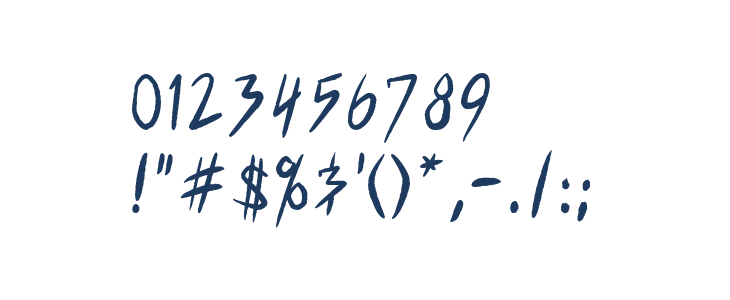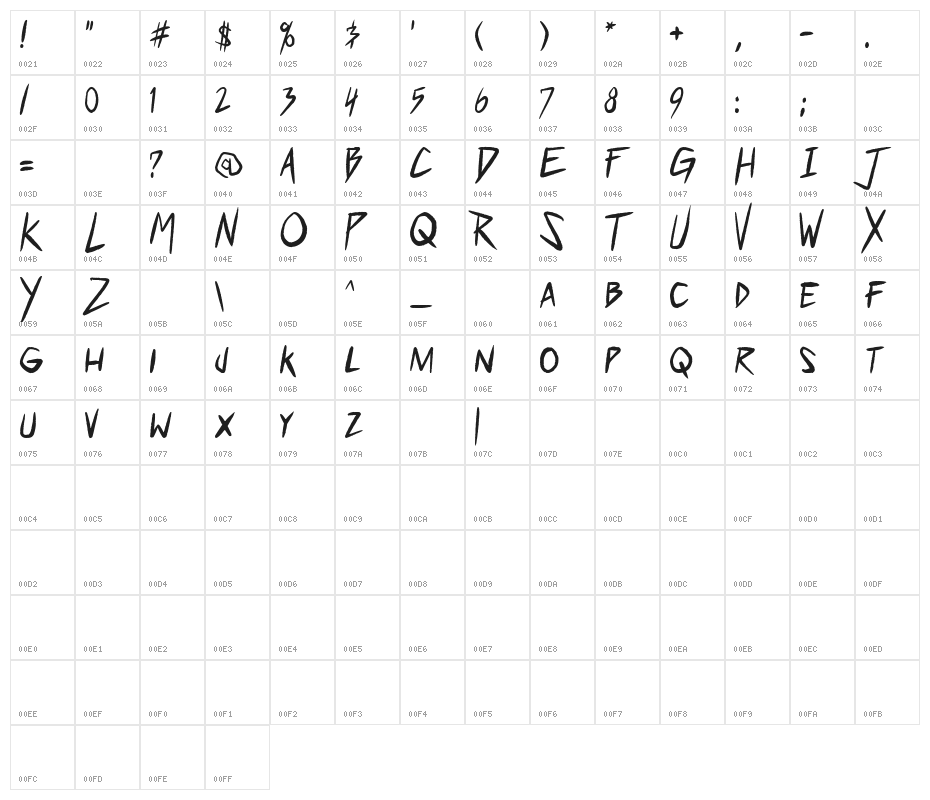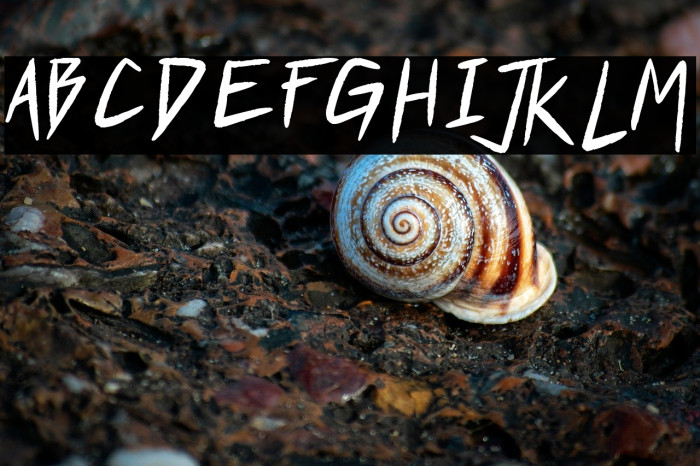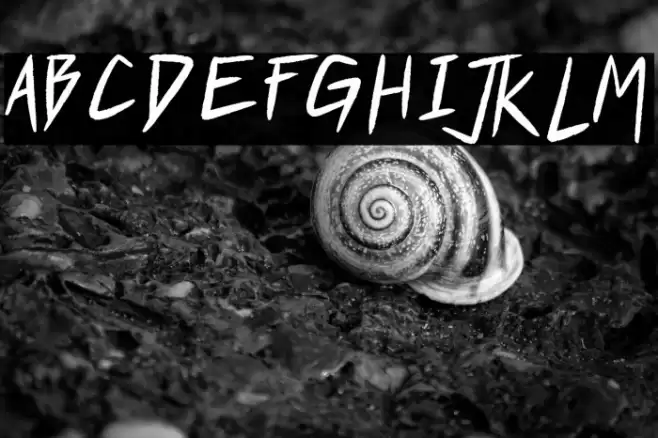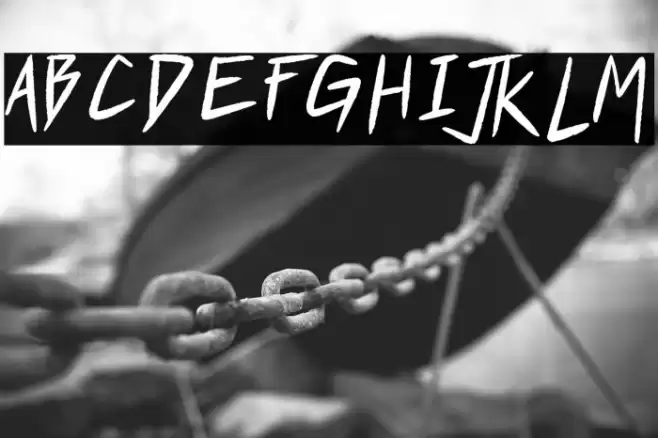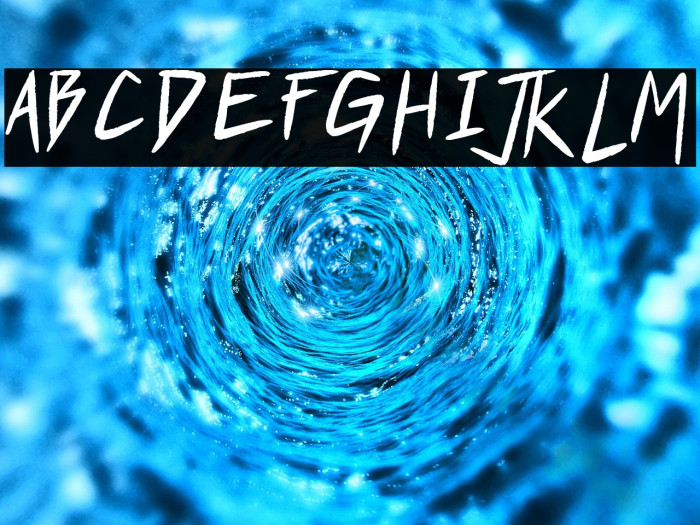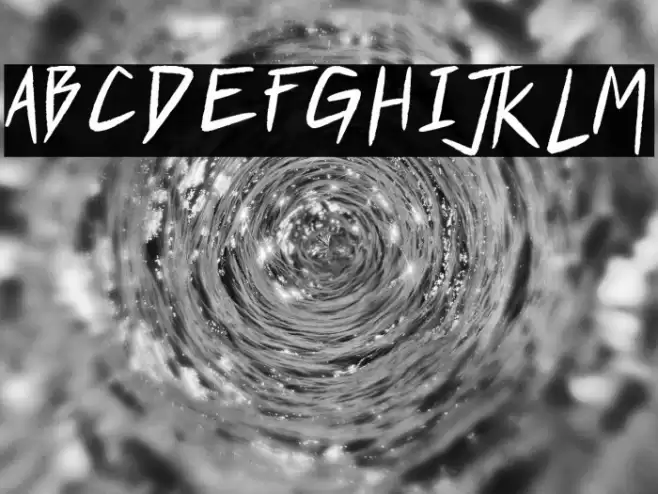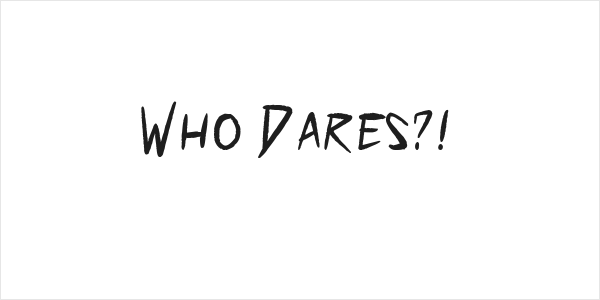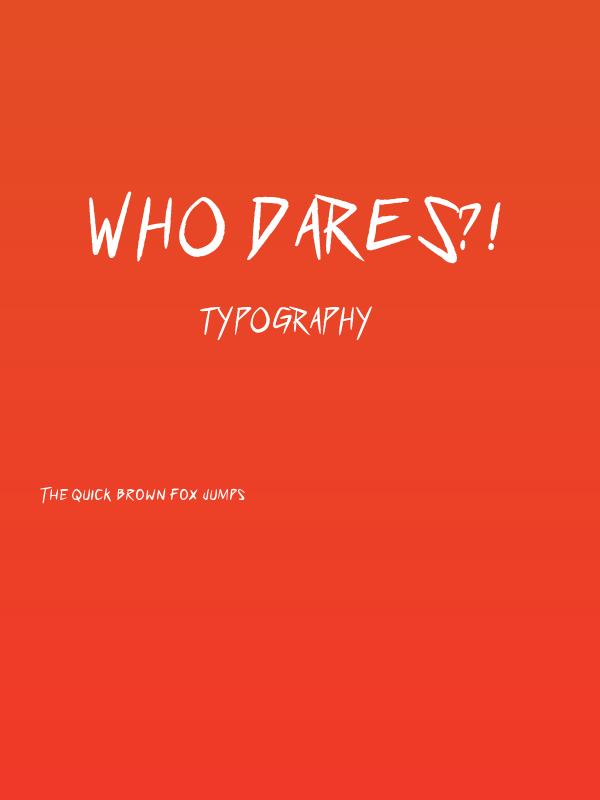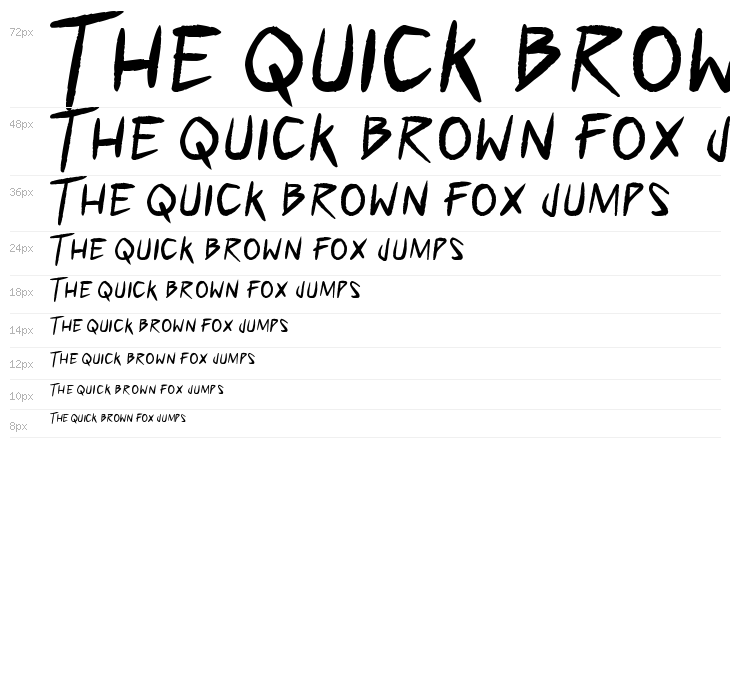
Who Dares?! Font
Who Dares?! Description
This font exudes a bold and daring personality, characterized by its sharp, angular strokes and dynamic, hand-drawn appearance. The letters are slightly irregular, giving it a raw, energetic feel that suggests movement and spontaneity. The uppercase and lowercase letters maintain a consistent style, with a slight slant that adds to the sense of urgency and excitement. The numbers and special characters follow the same design principles, ensuring a cohesive look across all elements. This font is perfect for projects that require a touch of edginess and creativity, making it ideal for headlines, posters, and branding materials that aim to stand out.
| Proposed Projects | Ideal for edgy branding, eye-catching posters, dynamic headlines, and creative projects. |